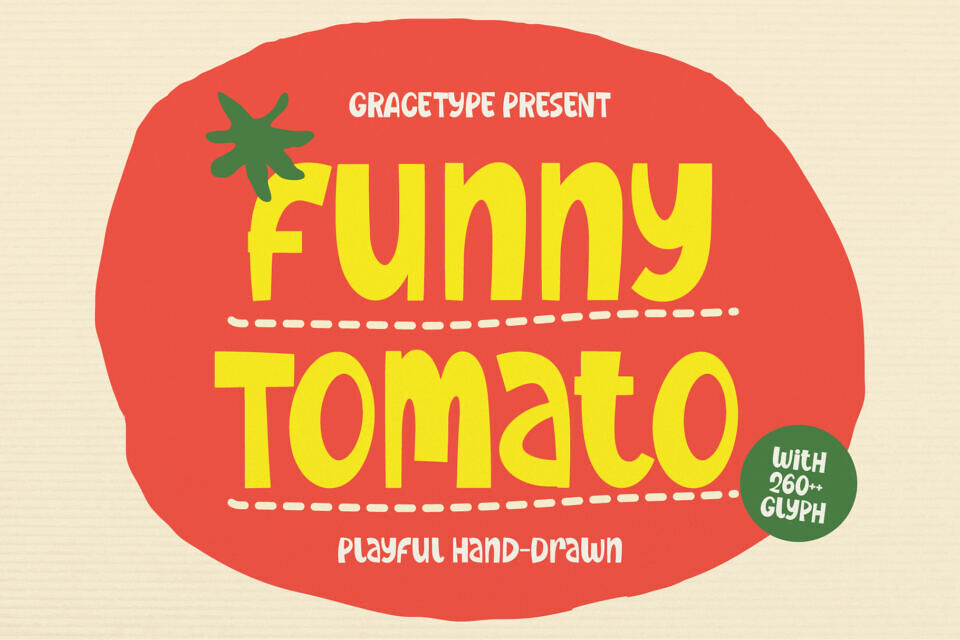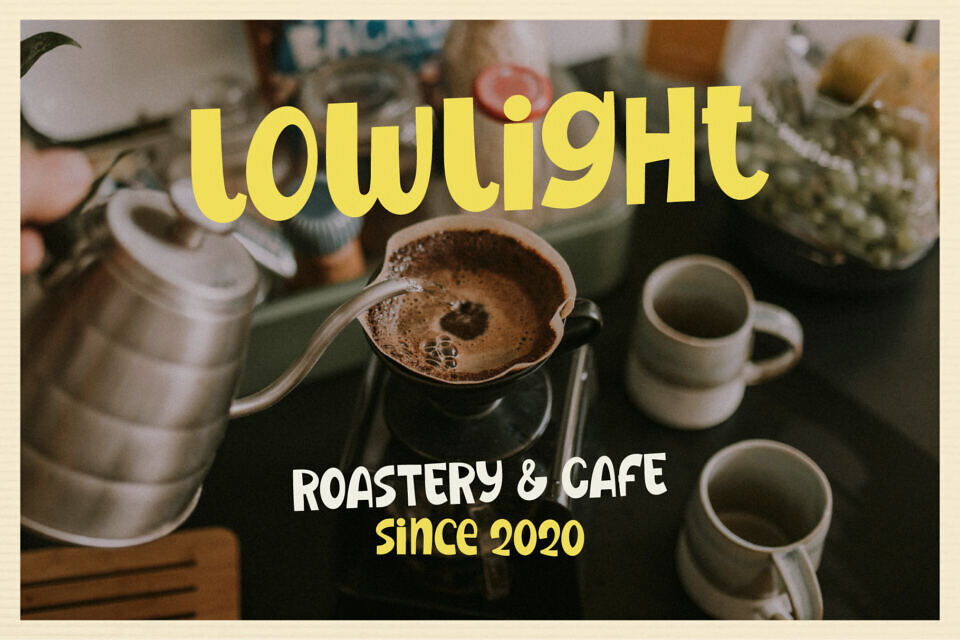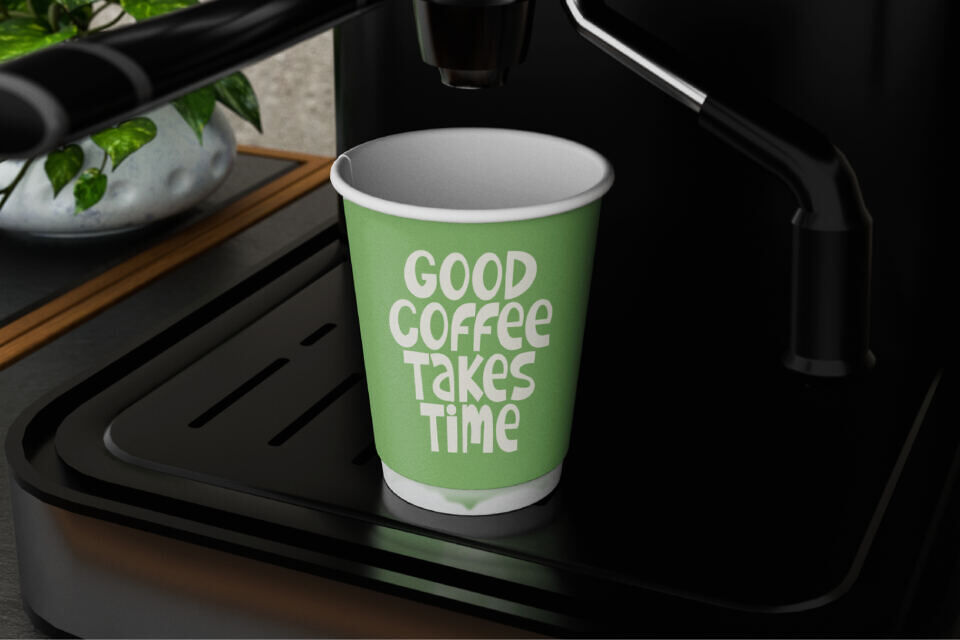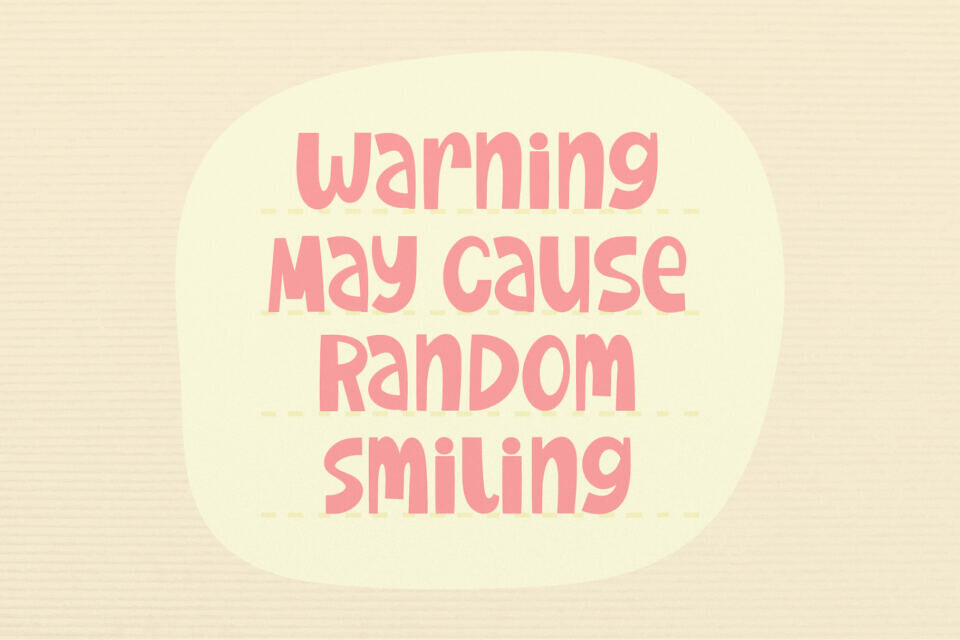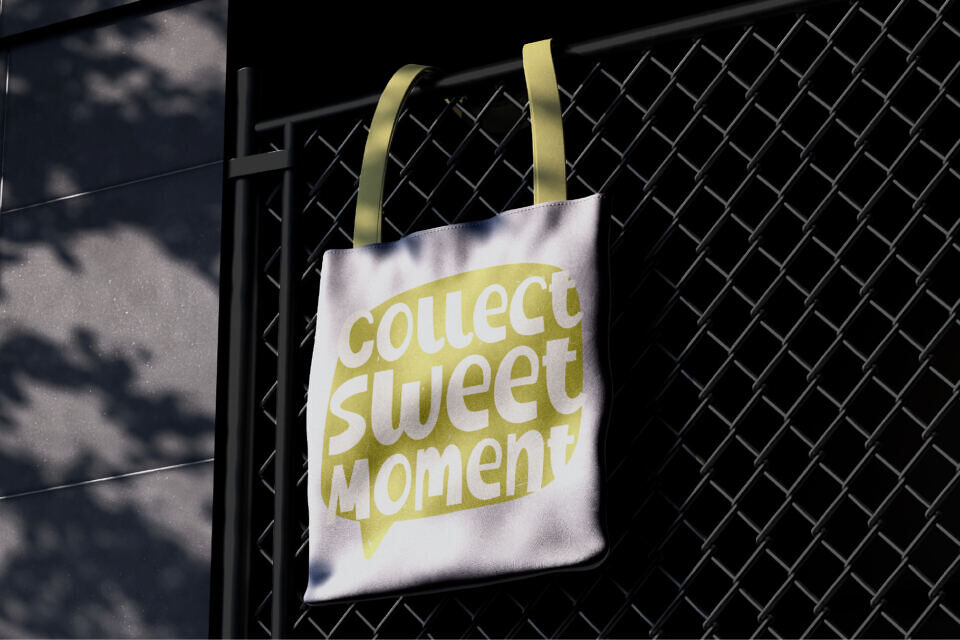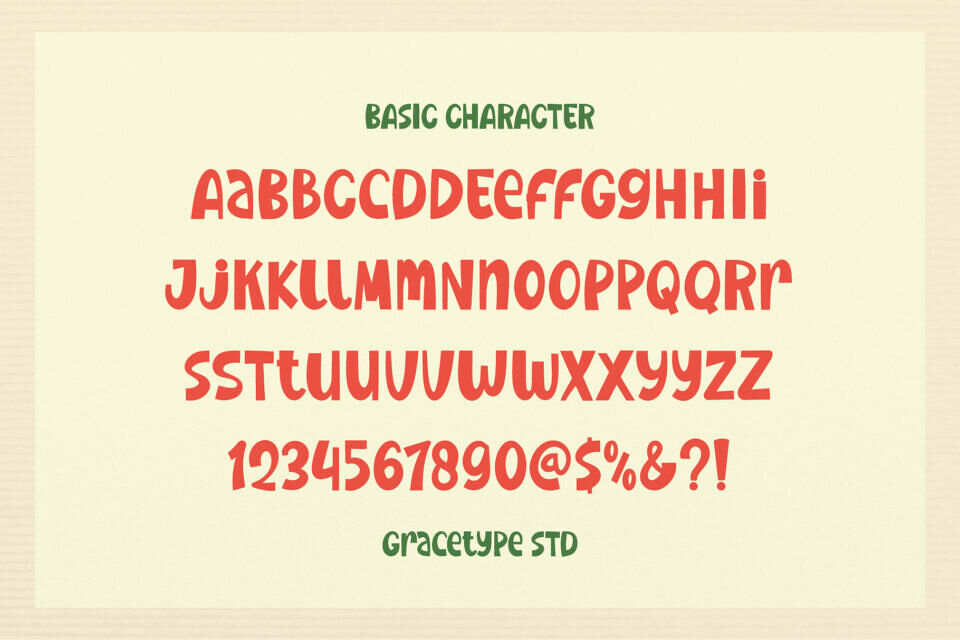
Funny Tomato is a delightfully quirky display font that captures a “juicy-and-carefree” soul. This typeface features thick, casual hand-drawn letterforms uniquely characterized by their asymmetrical shapes, uneven widths, and a bouncy baseline rhythm that bridges the gap between organic farmer’s market signage and modern indie kids’ branding.
With its heavy footprint and organic, friendly charm, Funny Tomato is the premier choice for independent organic snack packaging, children’s storybook layouts, casual restaurant menus, and high-impact “playful-and-whimsical” social media headlines.